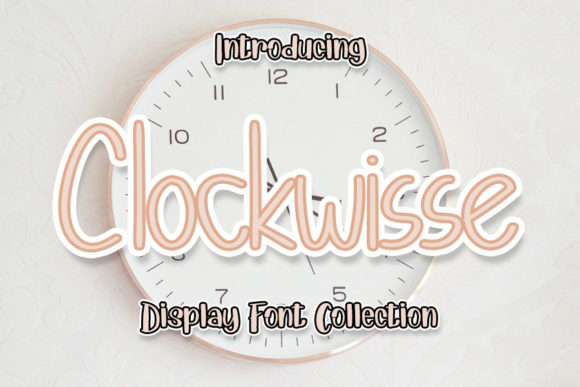
Introducing Clockwisse Font: The Ultimate Playful Handwritten Font for Your Designs
Are you tired of using the same old fonts for your designs? Do you want to add a touch of playfulness and joy to your creations? Look no further than Clockwisse Font! This simple yet vibrant handwritten font is perfect for designers and crafters who want to make their designs come alive.
What is Clockwisse Font?
Clockwisse Font is a beautiful, handwritten font that exudes joy and brightness. Its playful and carefree design makes it perfect for a wide range of design projects, from greeting cards and invitations to social media graphics and branding materials.
Key Features of Clockwisse Font
- Simple and Playful Design: Clockwisse Font features a simple yet playful design that is sure to capture the attention of your audience.
- Handwritten Style: The font’s handwritten style gives it a personal and friendly feel that’s perfect for designs that require a touch of warmth and personality.
- Joyful and Bright: Clockwisse Font is designed to bring joy and brightness to your designs, making it perfect for projects that require a positive and uplifting vibe.
- Highly Versatile: This font is highly versatile and can be used for a wide range of design projects, from digital graphics to print materials.
Why Choose Clockwisse Font?
There are many reasons why Clockwisse Font is the perfect choice for your design projects. Here are just a few:
- Unique and Eye-Catching: Clockwisse Font is a unique and eye-catching font that’s sure to make your designs stand out from the crowd.
- Easy to Read: Despite its playful design, Clockwisse Font is easy to read and can be used for both headings and body text.
- Perfect for Branding: The font’s friendly and approachable design makes it perfect for branding projects that require a personal touch.
- Great for Social Media: Clockwisse Font is perfect for social media graphics, including Facebook posts, Instagram stories, and Twitter headers.
How to Use Clockwisse Font in Your Designs
Using Clockwisse Font in your designs is easy! Here are a few tips to get you started:
- Pair it with Other Fonts: Clockwisse Font pairs well with other fonts, including sans-serif and serif fonts.
- Use it for Headings: The font’s playful design makes it perfect for headings and titles.
- Add Color: Clockwisse Font looks great with bright and bold colors, so don’t be afraid to add some color to your designs.
- Experiment with Different Sizes: The font’s versatility means it can be used at a variety of sizes, from small captions to large headings.
Who is Clockwisse Font for?
Clockwisse Font is perfect for a wide range of designers and crafters, including:
- Graphic Designers: Clockwisse Font is perfect for graphic designers who want to add a touch of playfulness to their designs.
- Social Media Managers: The font’s bright and cheerful design makes it perfect for social media graphics and posts.
- Crafters: Clockwisse Font is perfect for crafters who want to add a personal touch to their DIY projects.
- Small Business Owners: The font’s friendly and approachable design makes it perfect for small business owners who want to add a personal touch to their branding.
Clockwisse Font is a simple yet playful handwritten font that’s perfect for designers and crafters who want to add a touch of joy and brightness to their designs. Its highly versatile design makes it perfect for a wide range of projects, from digital graphics to print materials. So why wait? Download Clockwisse Font today and start making your designs come alive!